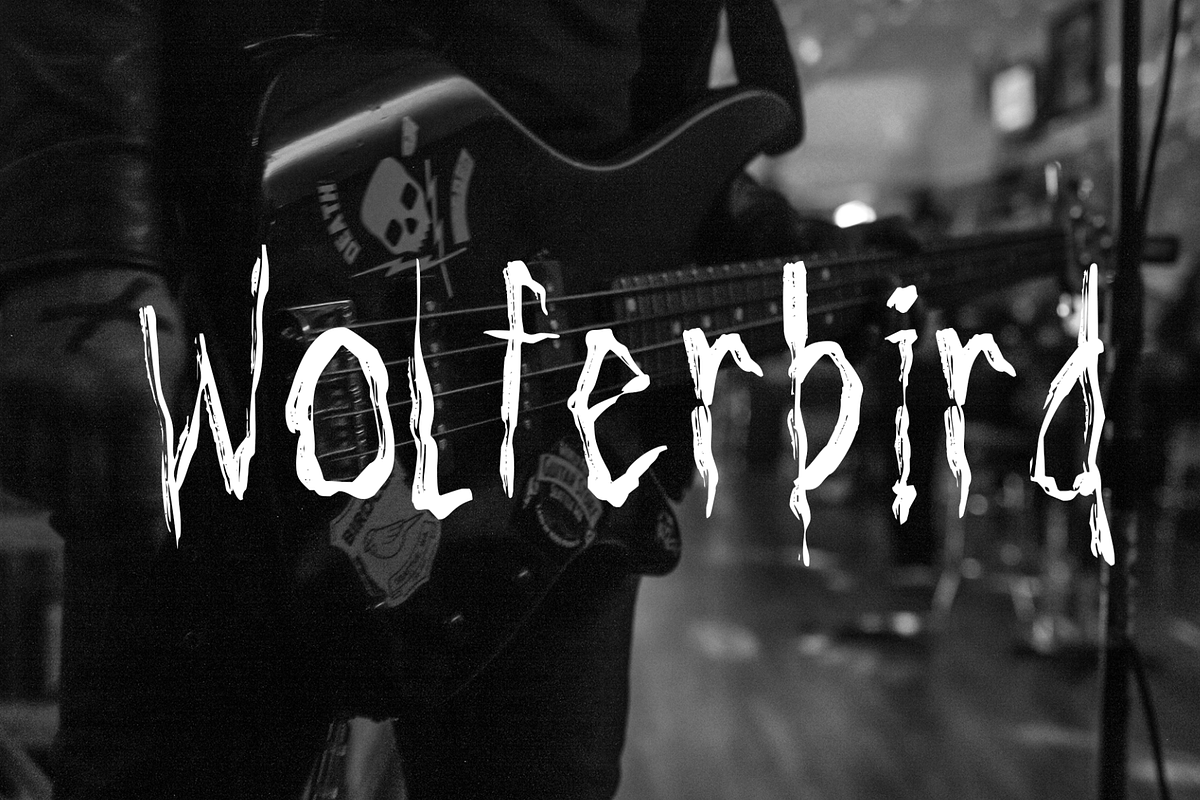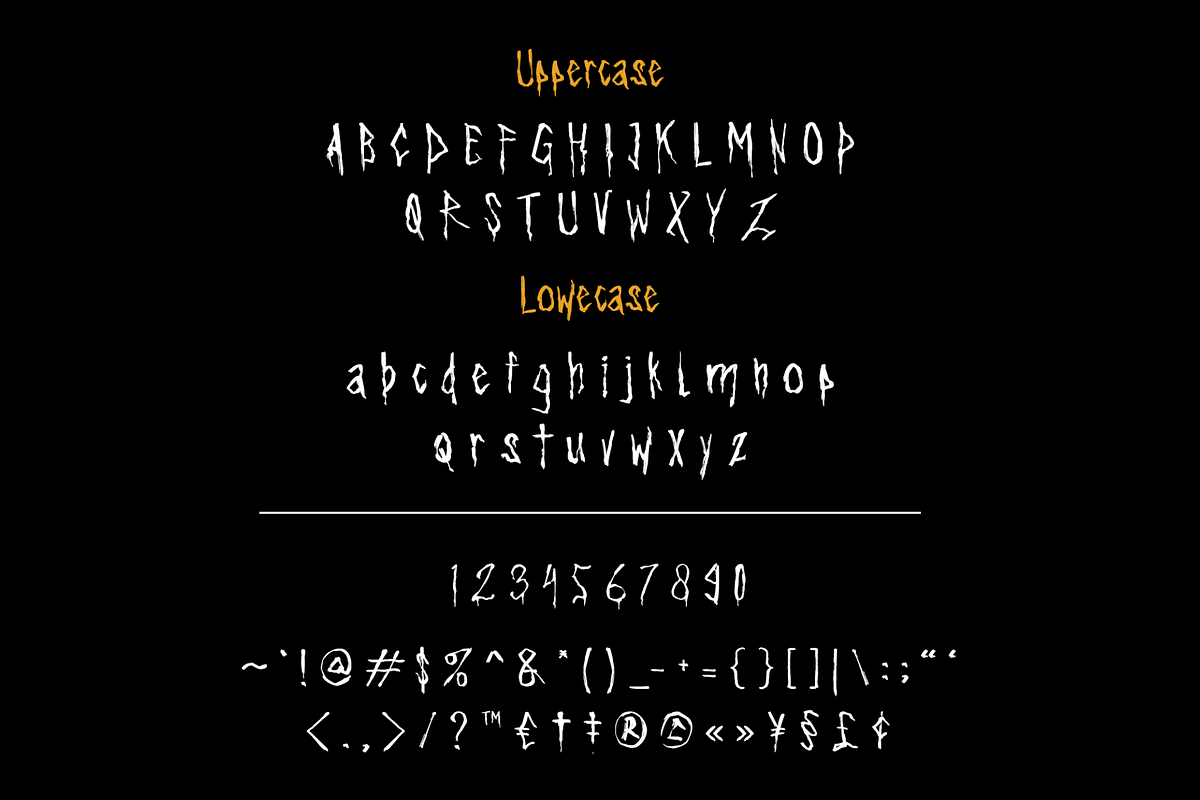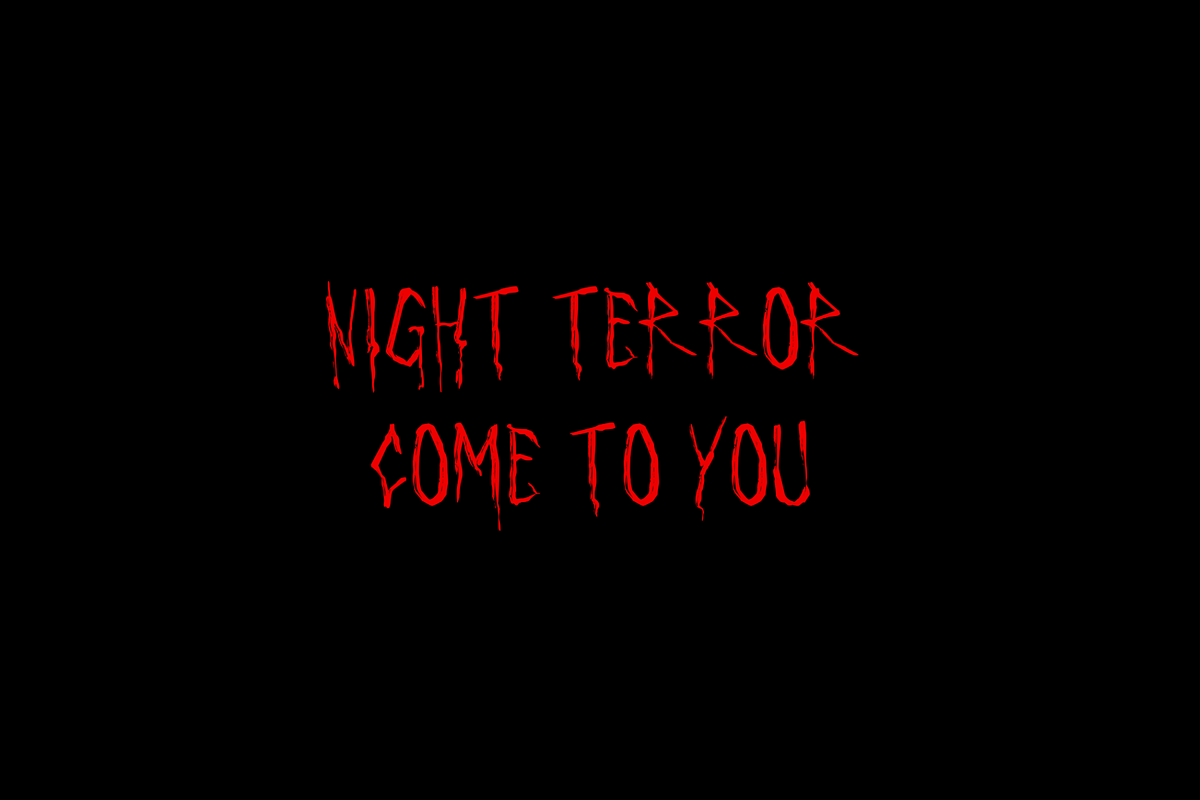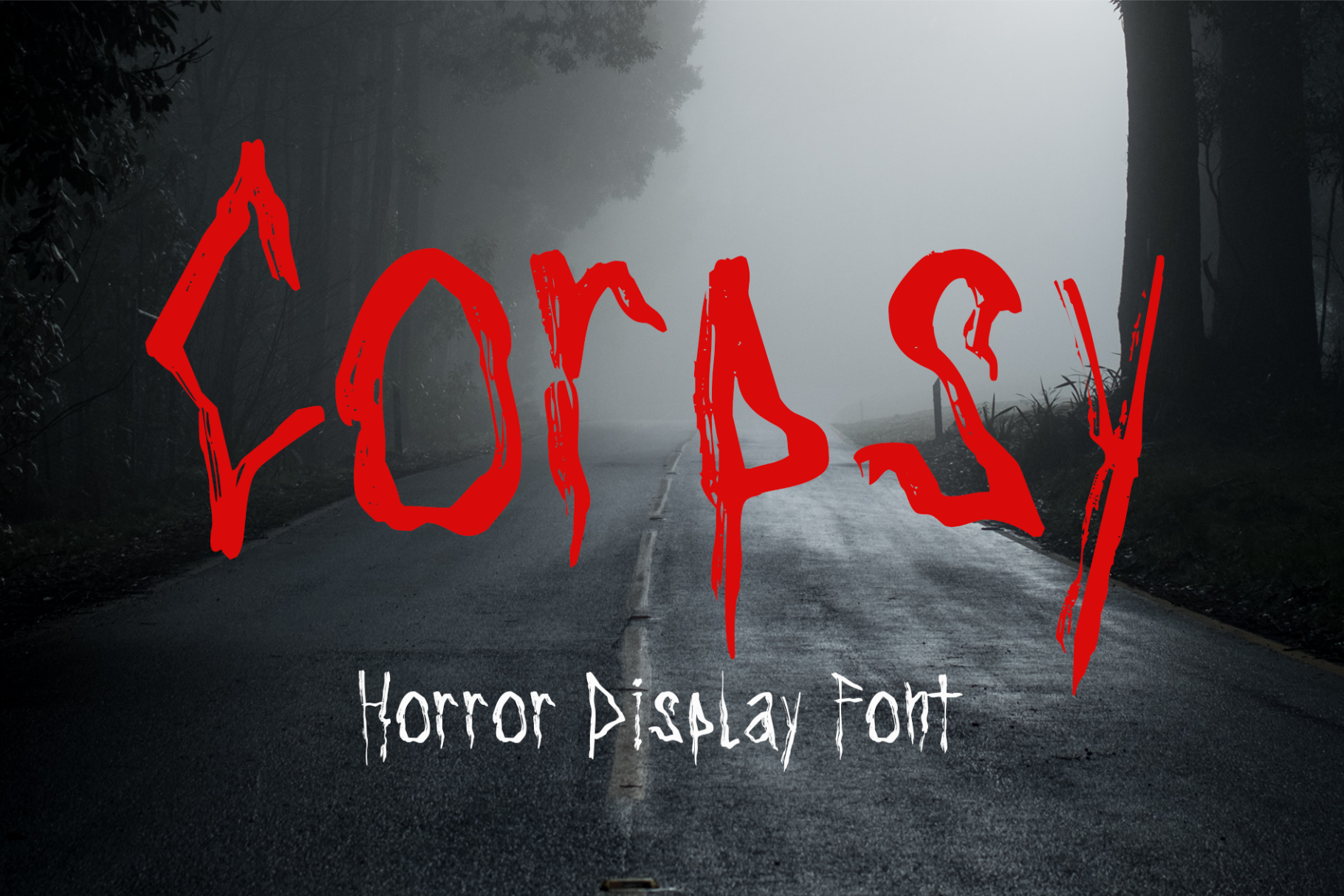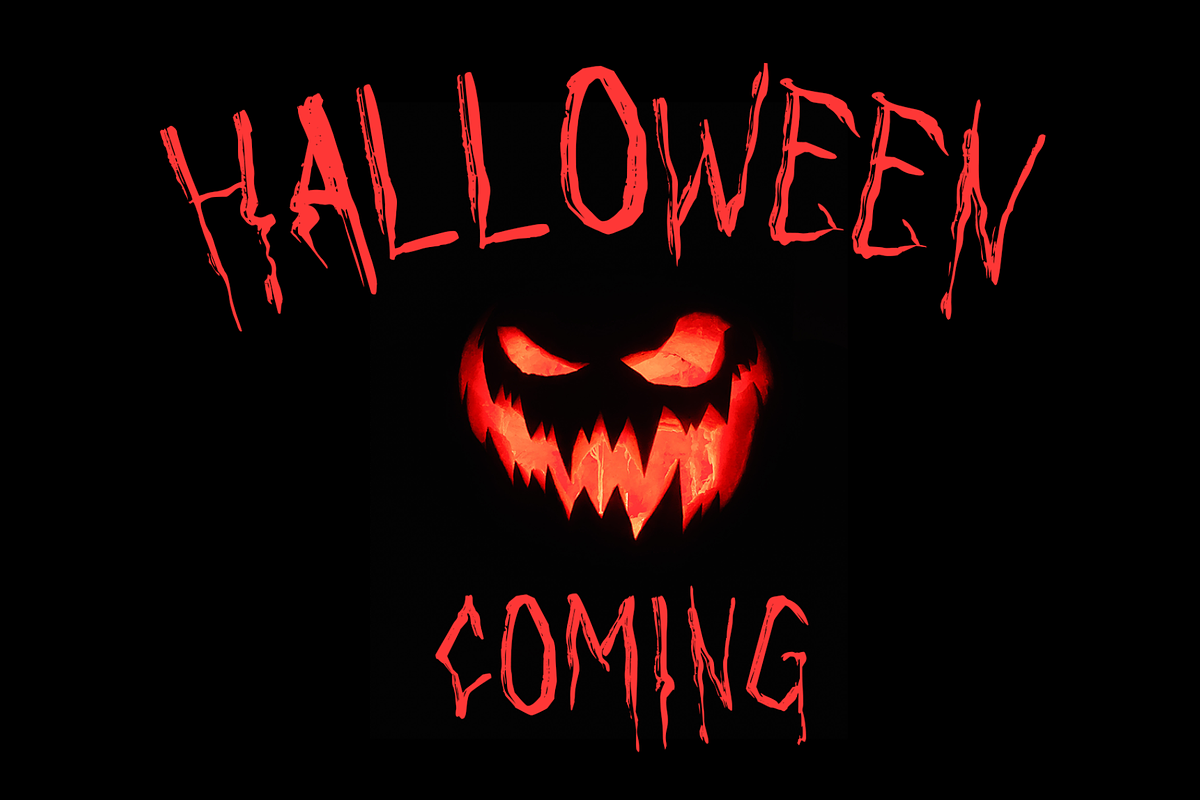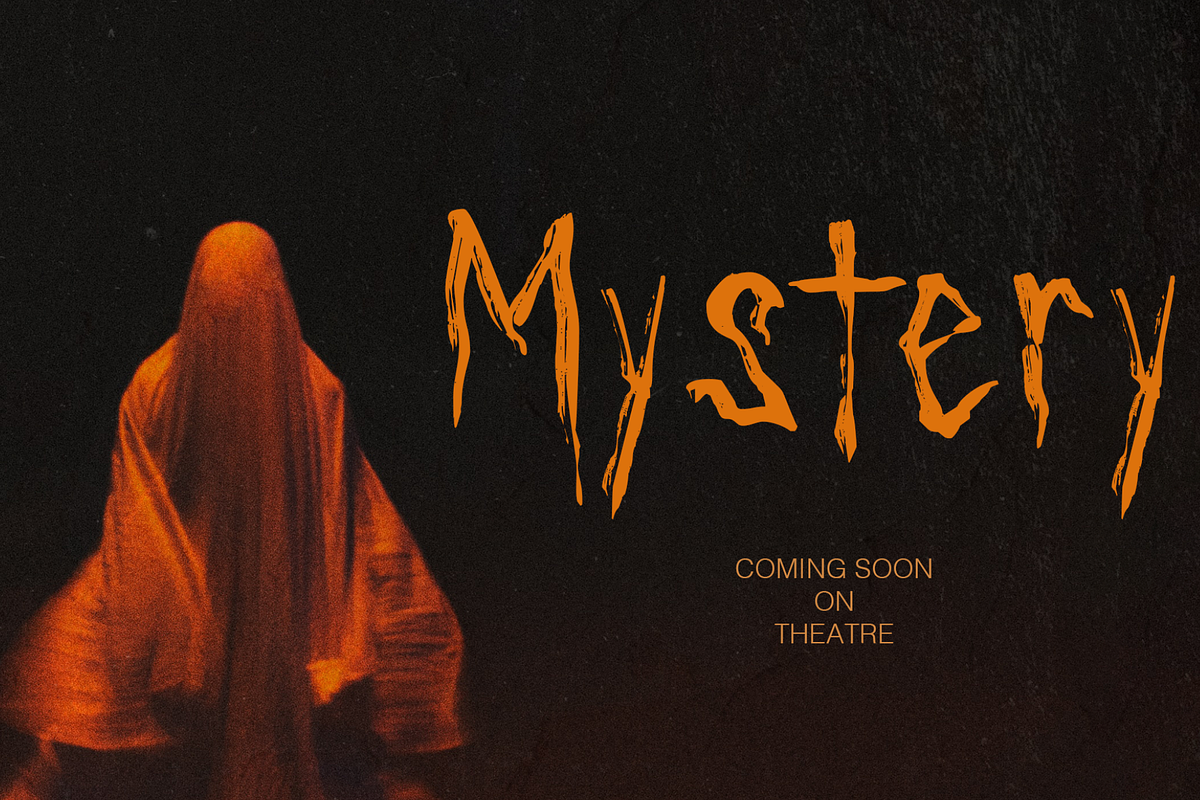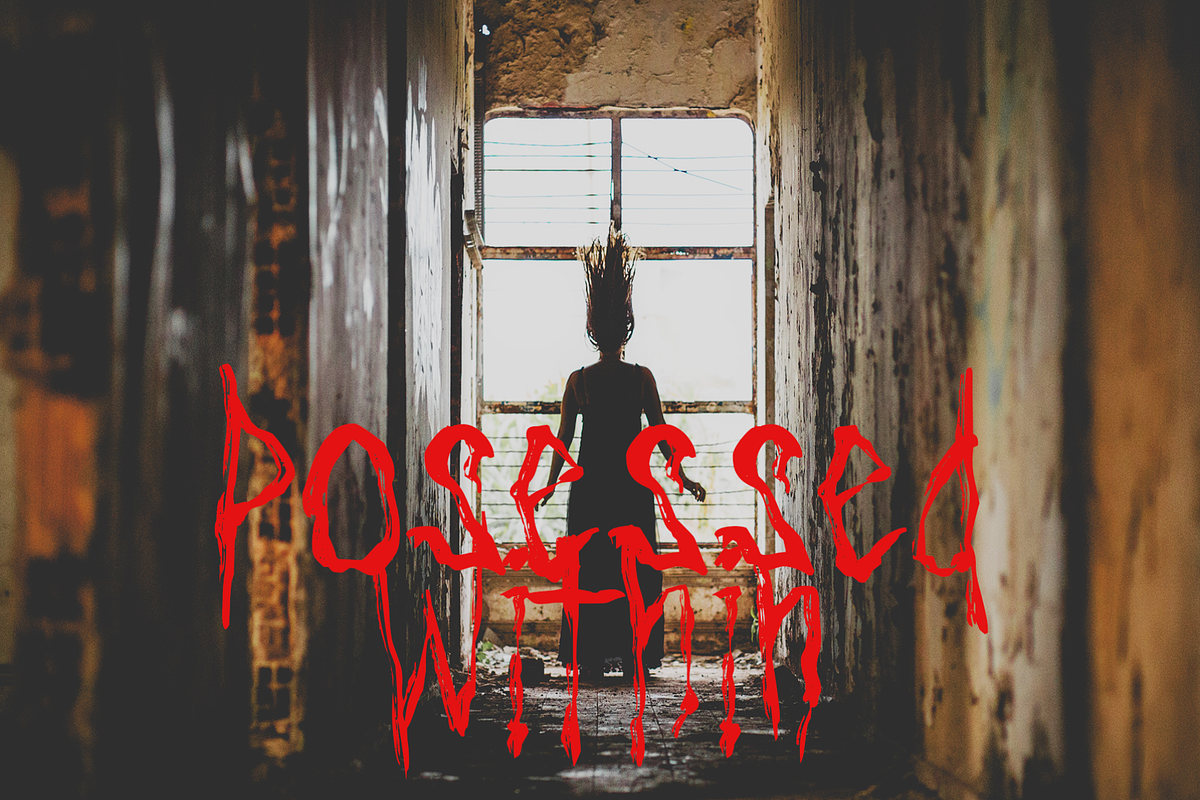
Corpsy | Trashed Horror Font
Introducing Corpsy - the perfect font for all things horror! With its unique and droplet touch, this font screams Halloween, nightmare, horror, and many more. Its trash style adds a gritty edge that is sure to make your designs stand out. Corpsy is great for posters, t-shirts, art crafts, unique headlines, logotypes, and many more. Don't settle for ordinary fonts - choose Corpsy to give your designs a spooky and unforgettable twist!